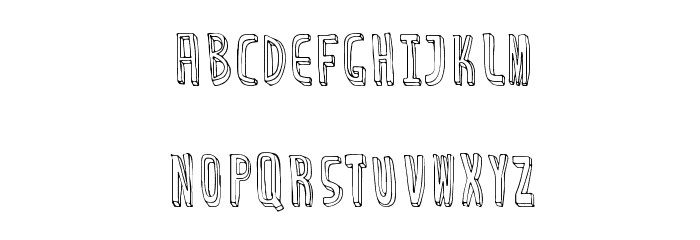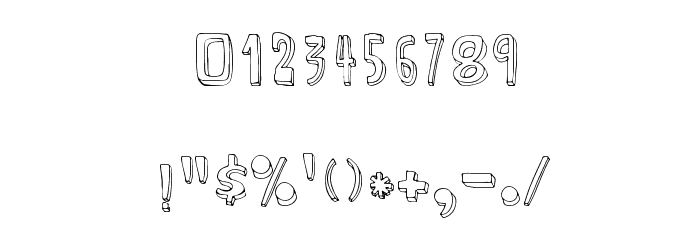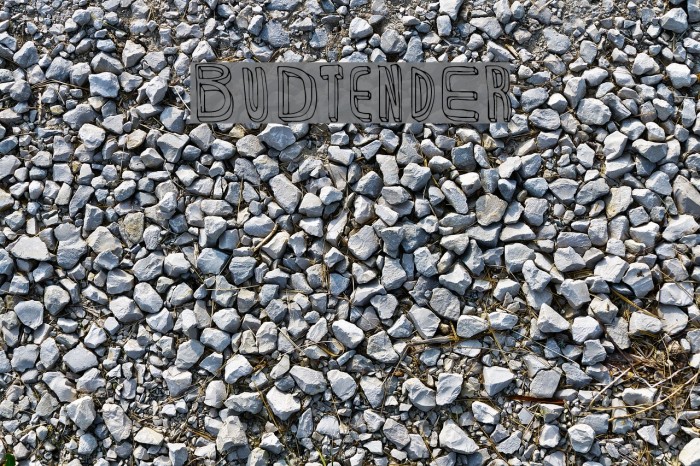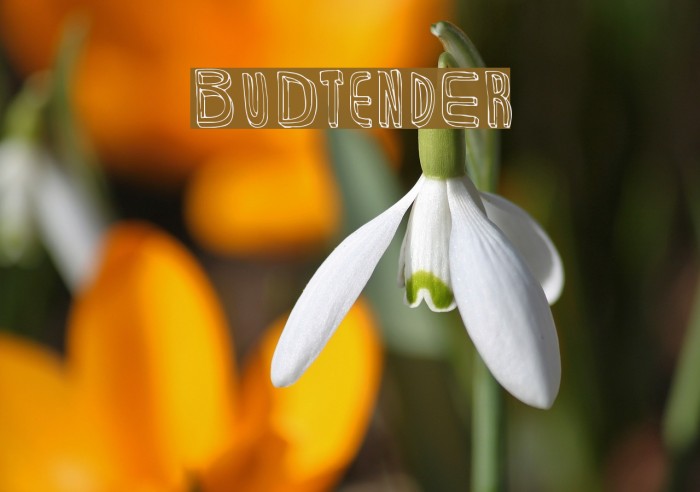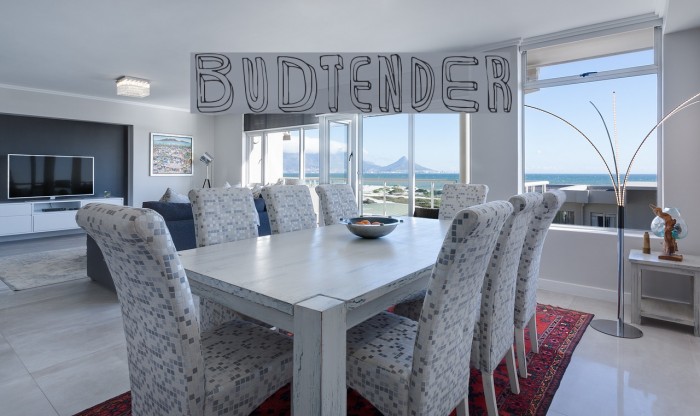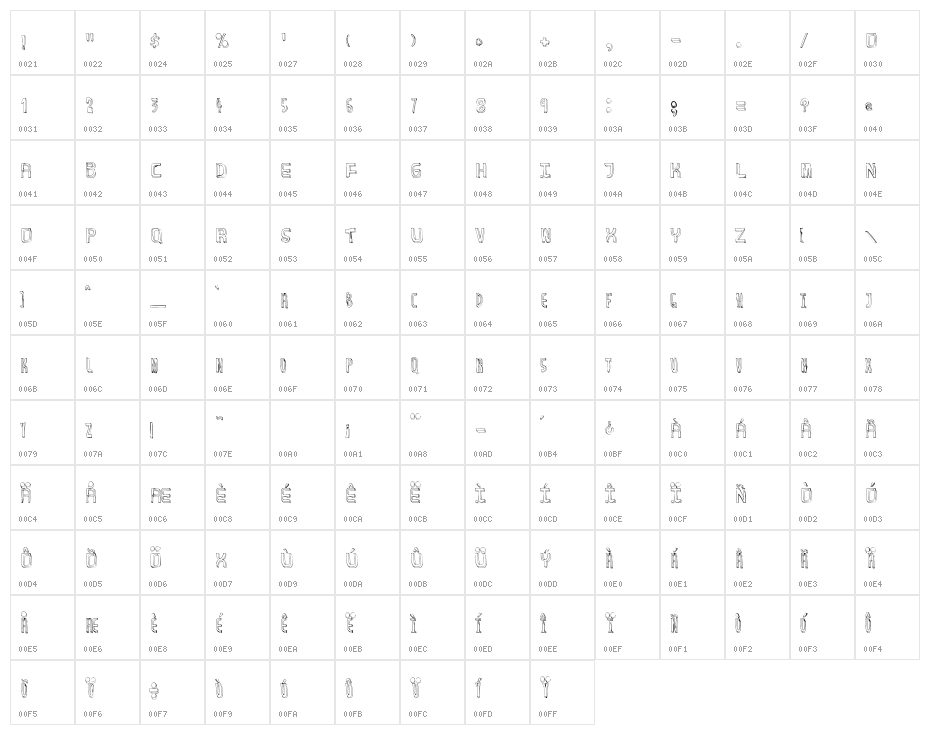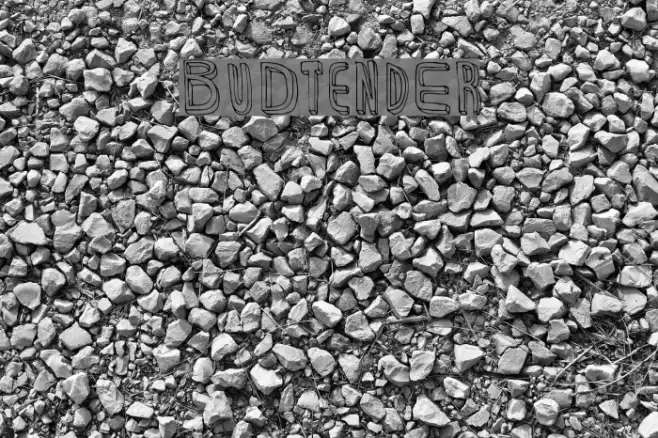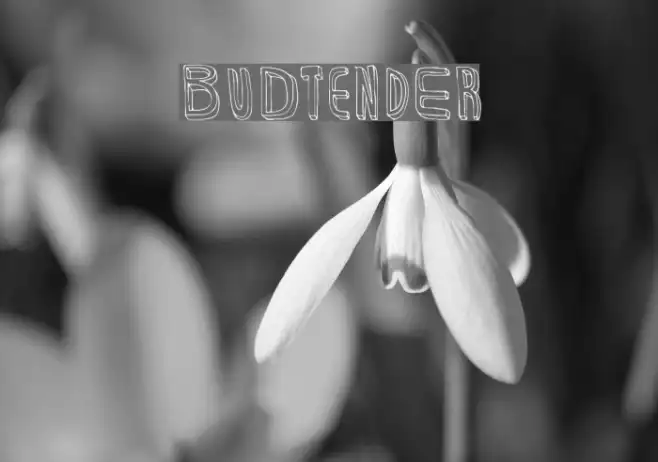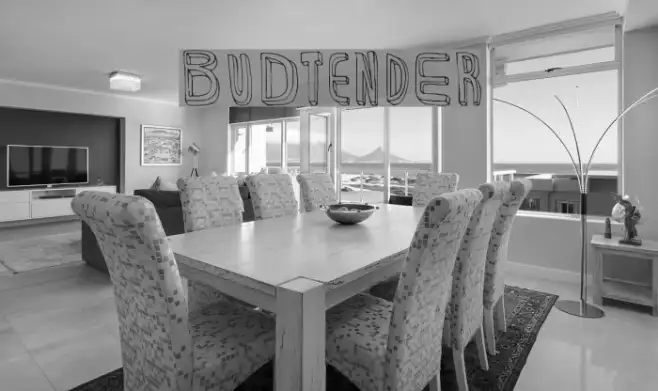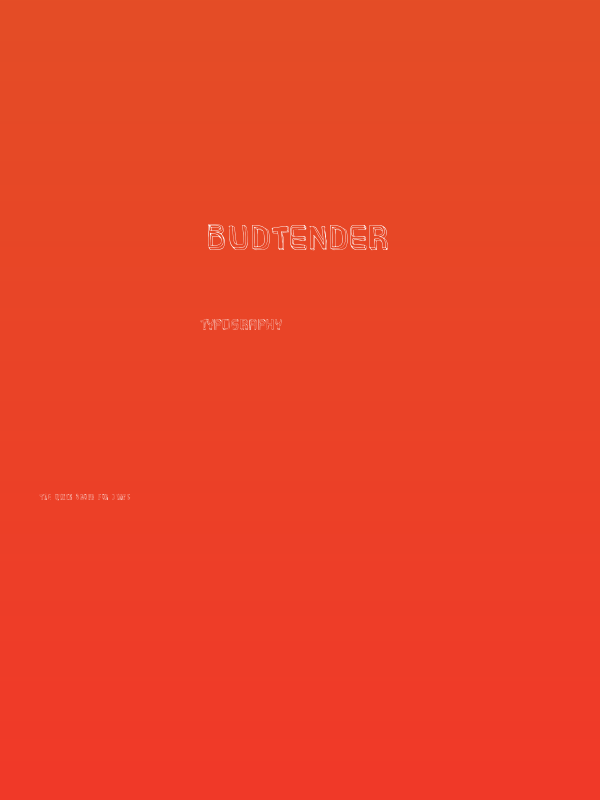
BuDtendEr Font
This font features a playful and artistic design, characterized by its hand-drawn, sketch-like appearance. Each character is outlined with a double line, creating a dimensional effect that adds depth and interest. The letters have a slightly irregular shape, enhancing the casual and creative vibe. The font maintains a consistent height across all characters, ensuring readability while retaining its unique style. The numbers and special characters follow the same design principles, making them cohesive with the alphabet. This font is ideal for projects that require a fun and informal touch.
A playful, hand-drawn font with a sketch-like, dimensional appearance.
- Proposed Projects: Perfect for children's books, creative posters, casual branding, and artistic invitations.